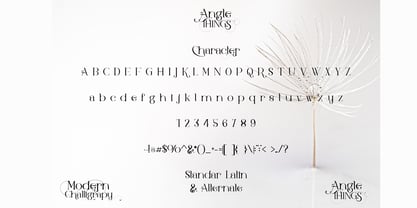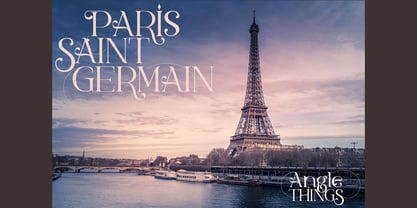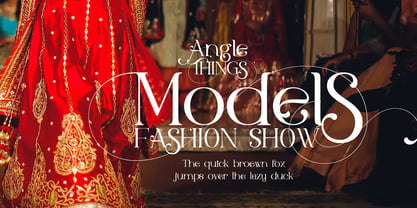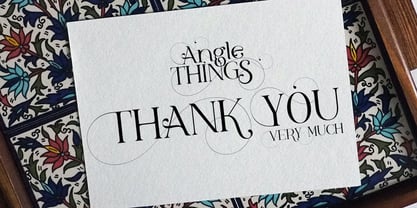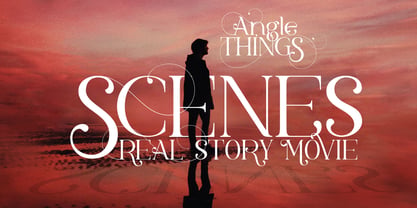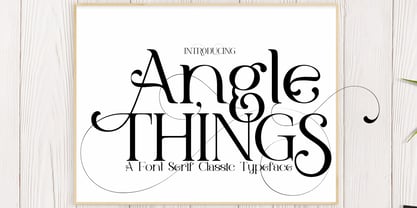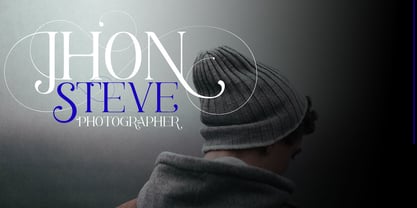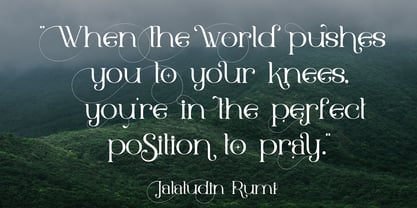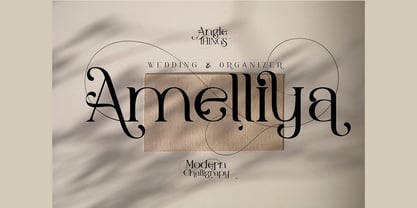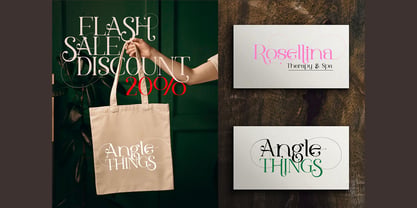
Angle Things
by Jehansyah
The Angle Things Font Family was designed by Ibram Syah and published by Jehansyah. Angle Things contains 1 styles. More about this family
Angle Things This font design is very elegant for all your needs, with a very special appearance, it can make your design look very beautiful and have a pleasant feel. This font has a very elegant appearance, very suitable for designs that require luxury and authority, can make your design look very characters that you can use, according to your design, to make it look more striking and bold.
Designers: Ibram Syah
Foundry: Jehansyah